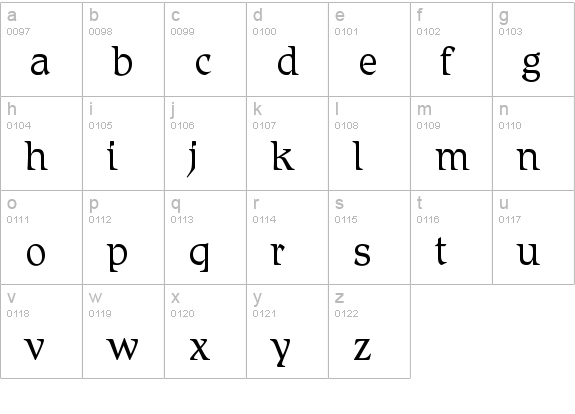
AT Romic Light Font Details
AT Romic Light is a refined, elegant variant in the AT typeface family \xE2\x80\x94 well suited to elegant body text, refined sub-headings, and luxury branding.
AT Romic Light font is a modern and elegant typeface that exudes sophistication and style. Its sleek lines and graceful curves make it perfect for a wide range of design projects, from branding to editorial layouts. The light weight of the font adds a touch of delicacy, making it a versatile choice for both headers and body text. Best of all, AT Romic Light font is available for free download at FontsMarket.com. This means you can enjoy the beauty and versatility of this font without any cost, making it a valuable addition to your font collection. Don't miss out on the opportunity to enhance your designs with the timeless charm of AT Romic Light font. Download it today and elevate your projects to the next level.